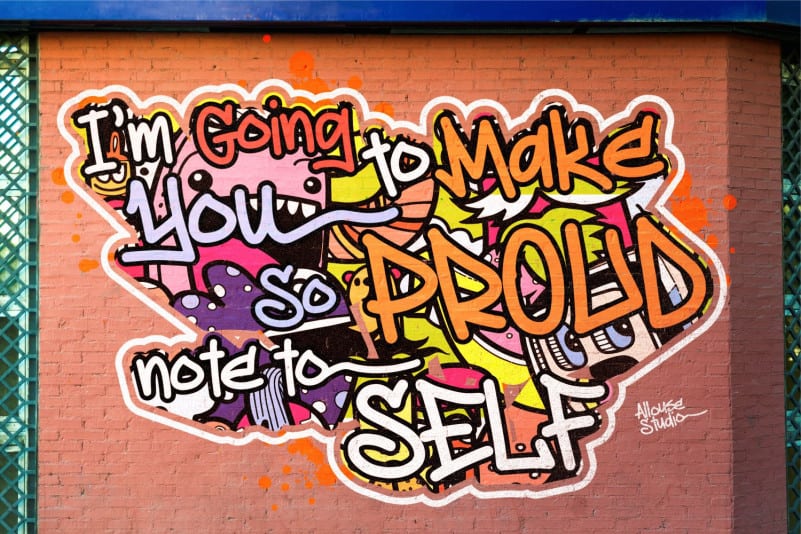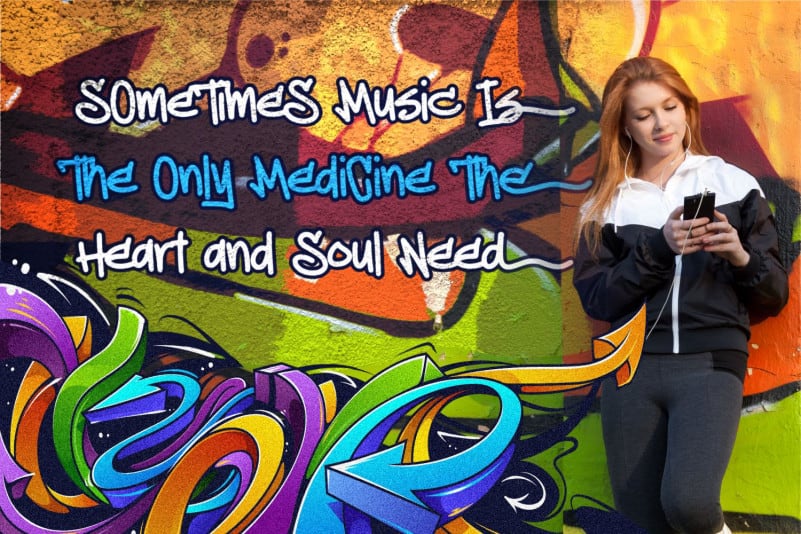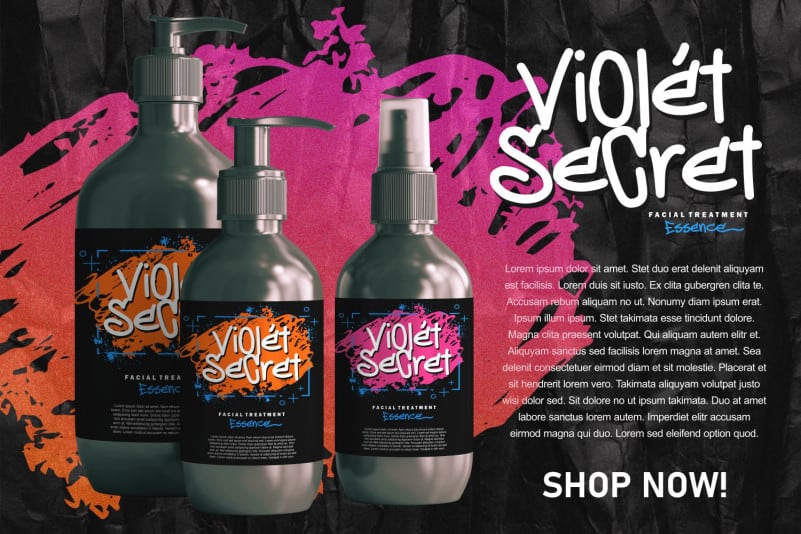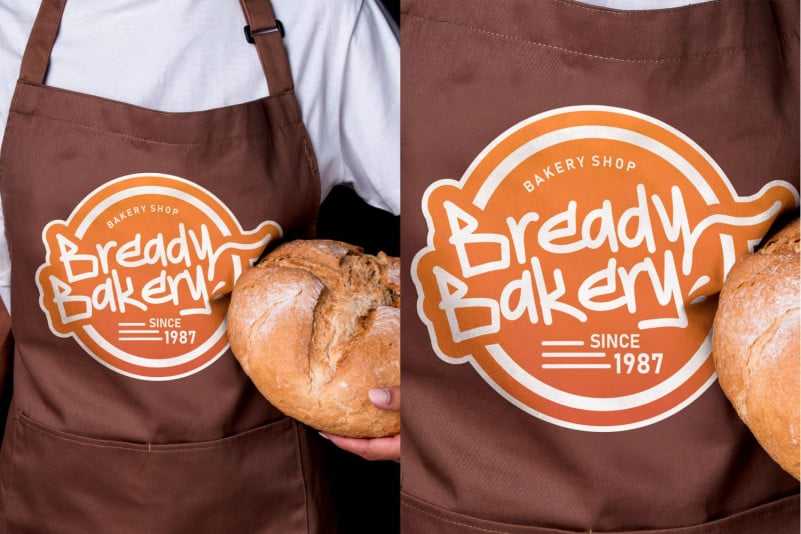
Jimmy Collins Display Font
Jimmy Collins Display Font is a bouncy and quirky display font. It will add a fresh and contemporary touch to your designs. Add this unique display font to each of your creative ideas and notice how it makes them stand out!